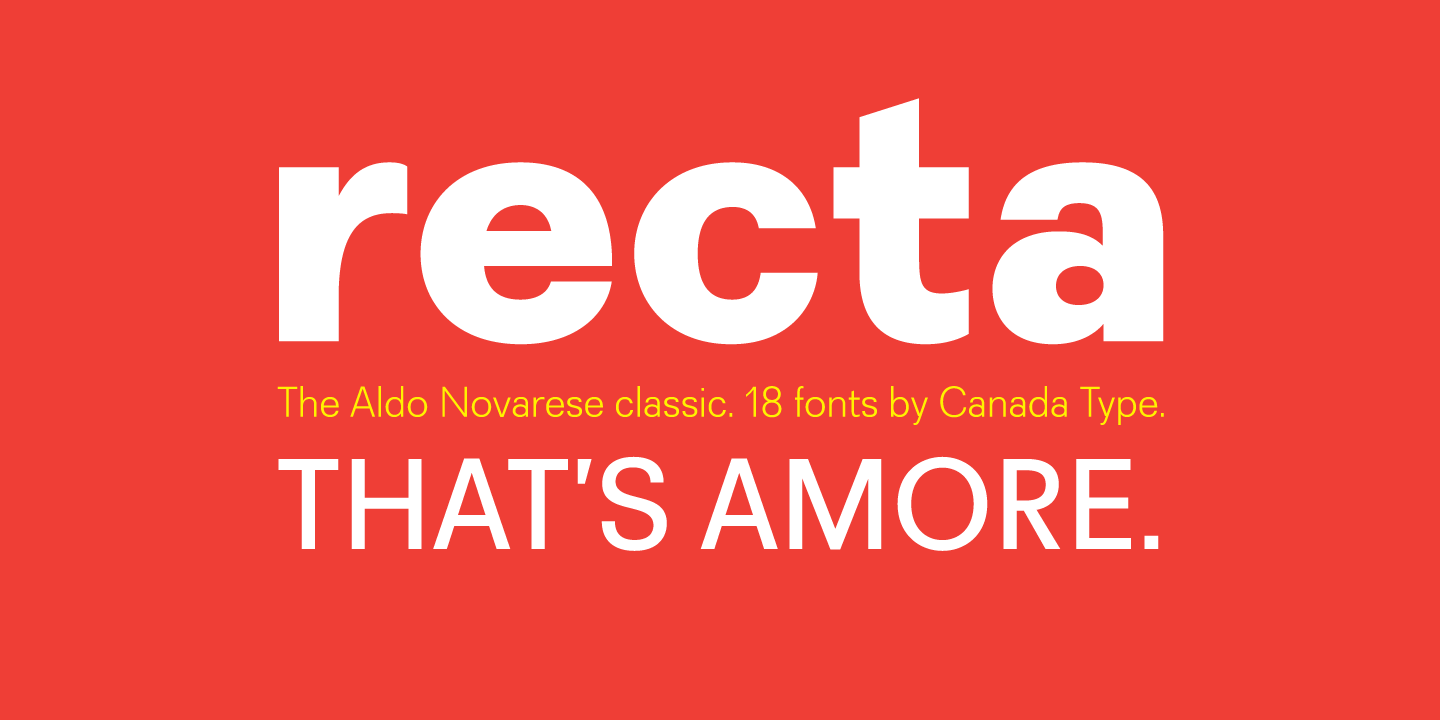
Recta Font is perfect for architectural firm branding, engineering documentation, technical manual layouts, precision instrument labeling, construction industry signage, industrial design presentations, geometric art projects, mathematical publication designs, structural blueprints, and technical specification materials.
What makes Recta Font so exciting is its mathematical precision that embodies perfect geometric alignment and structural integrity in every letterform. This typeface features straight-line construction with exact angles and measured proportions that communicate accuracy and technical excellence. The font's precise and systematic character delivers unwavering consistency and clarity, making it perfect for brands seeking to establish authoritative technical presence and appeal to audiences who value precision engineering and the uncompromising accuracy of well-executed technical design.
Recta Font family includes Thin, Light, Regular, Medium, Bold, and Black weights, along with condensed variants that maintain geometric precision. The family also features special character sets including technical symbols, mathematical operators, and engineering notation elements that enhance the font's connection to precise technical and architectural design themes.
Recta Font supports comprehensive character sets including Latin alphabets, numbers, punctuation marks, and special technical symbols. The font's mathematically precise spacing creates perfect alignment while maintaining geometric consistency across all applications. Its OpenType features include contextual alternates, technical ligatures, and precision typography options that expand creative possibilities for engineering design projects.
Professional designers choose Recta Font for projects requiring authentic technical appeal and geometric precision aesthetics. The font excels in applications where accuracy and structural integrity are essential, offering the perfect solution for brands seeking to communicate precision, reliability, and technical expertise. Its geometric character makes it ideal for engineering firms, architectural studios, and precision manufacturing organizations.